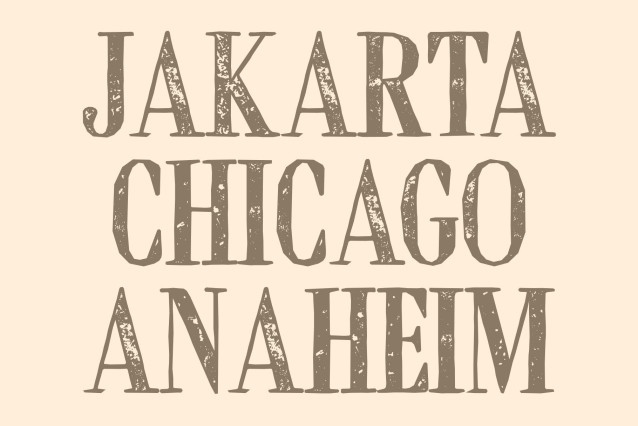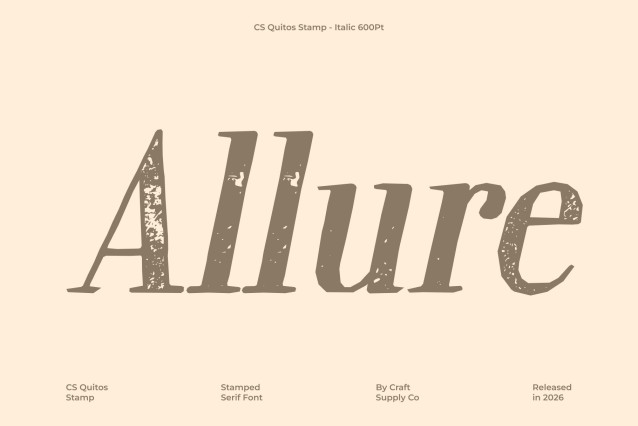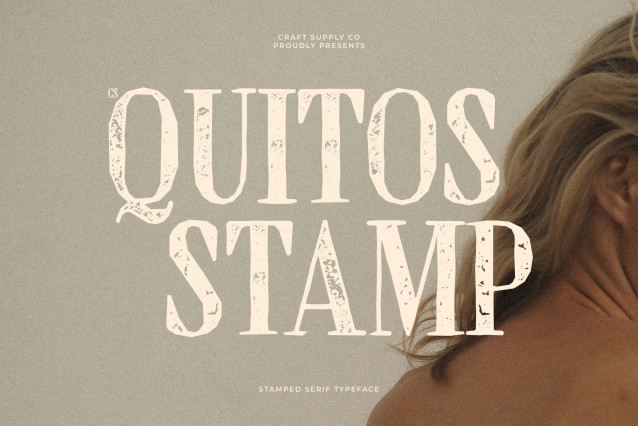
CS Quitos Stamp Font
CS Quitos Stamp – Modern Serif Font: Where Timeless Sophistication Meets Vintage Artistry
High-Contrast Serif Forms with Elegant Presence
This is a modern serif font designed with striking high contrast between thick and thin strokes, creating a bold yet graceful visual aesthetic. Its refined proportions and elegant structure deliver a timeless sophistication that feels both classic and contemporary. Every letterform radiates beauty, confidence, and artistic refinement, making the font perfect for premium visual compositions.
Contemporary Elegance with Captivating Style
This font offers a typographic voice that feels sophisticated, stylish, and visually captivating. The dramatic stroke contrast enhances its graceful personality while maintaining readability and balance, resulting in a typeface ideal for upscale and artistic design projects.